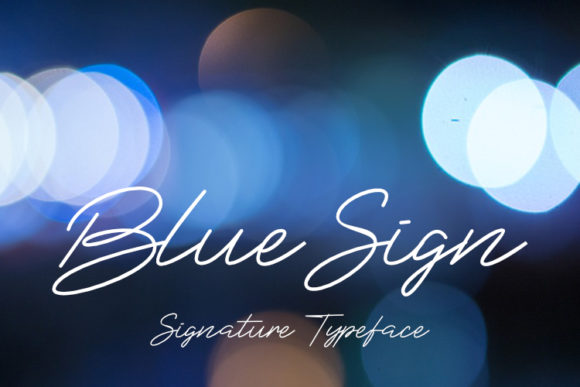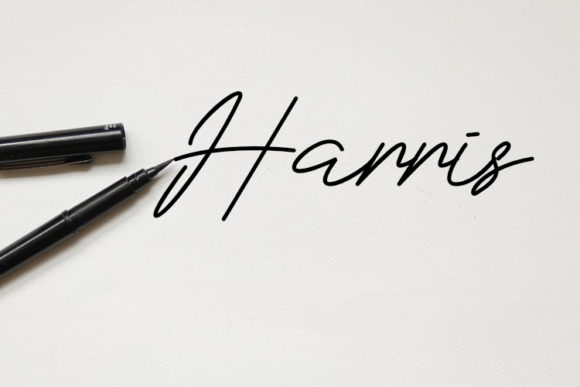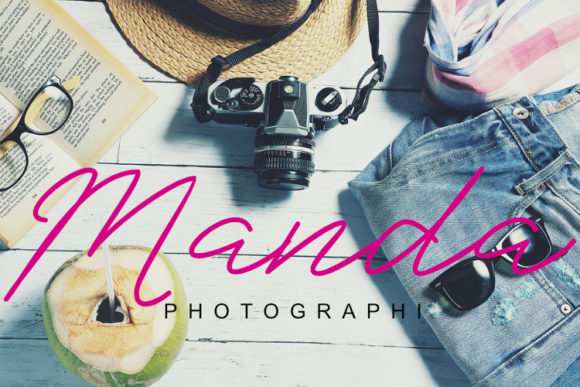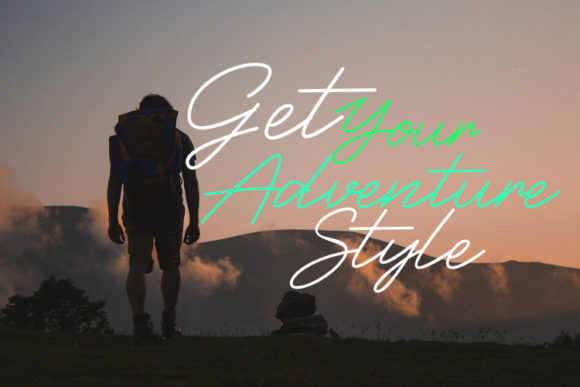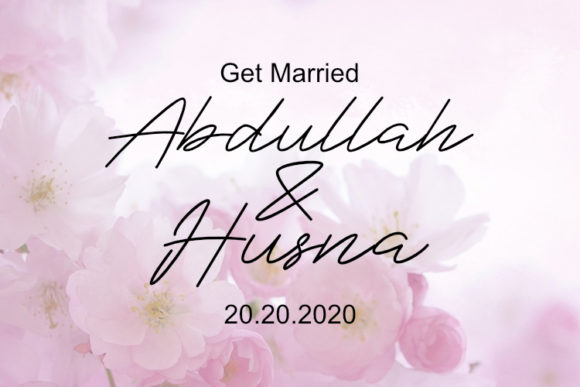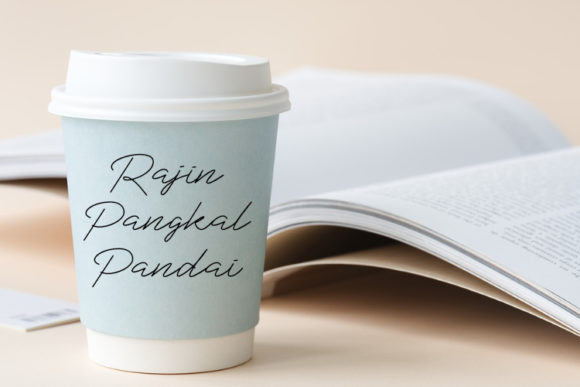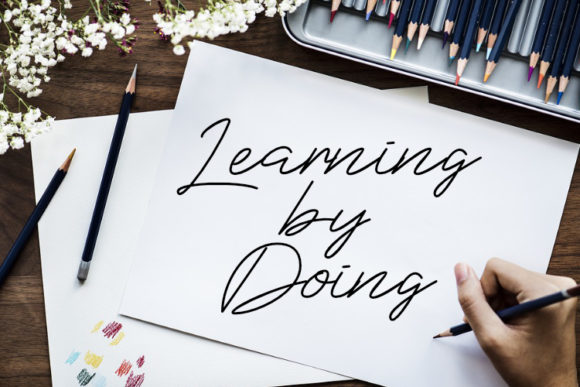
Blue Sign Font
About Blue Sign Font
The Blue Sign is a modern & fresh brush font. It includes stylish hand-lettering with a natural and classy look.
It’s perfect for many different project such as logos & branding, invitation, stationery, wedding designs, social media designs, and much more!